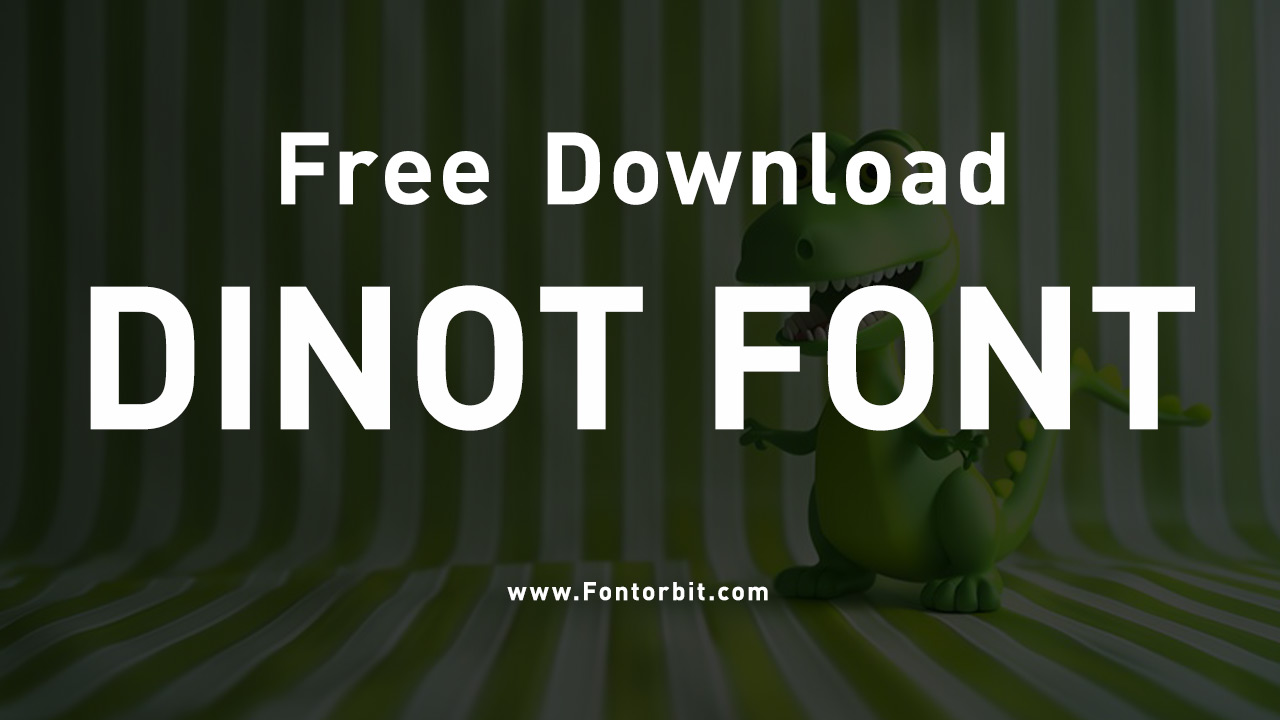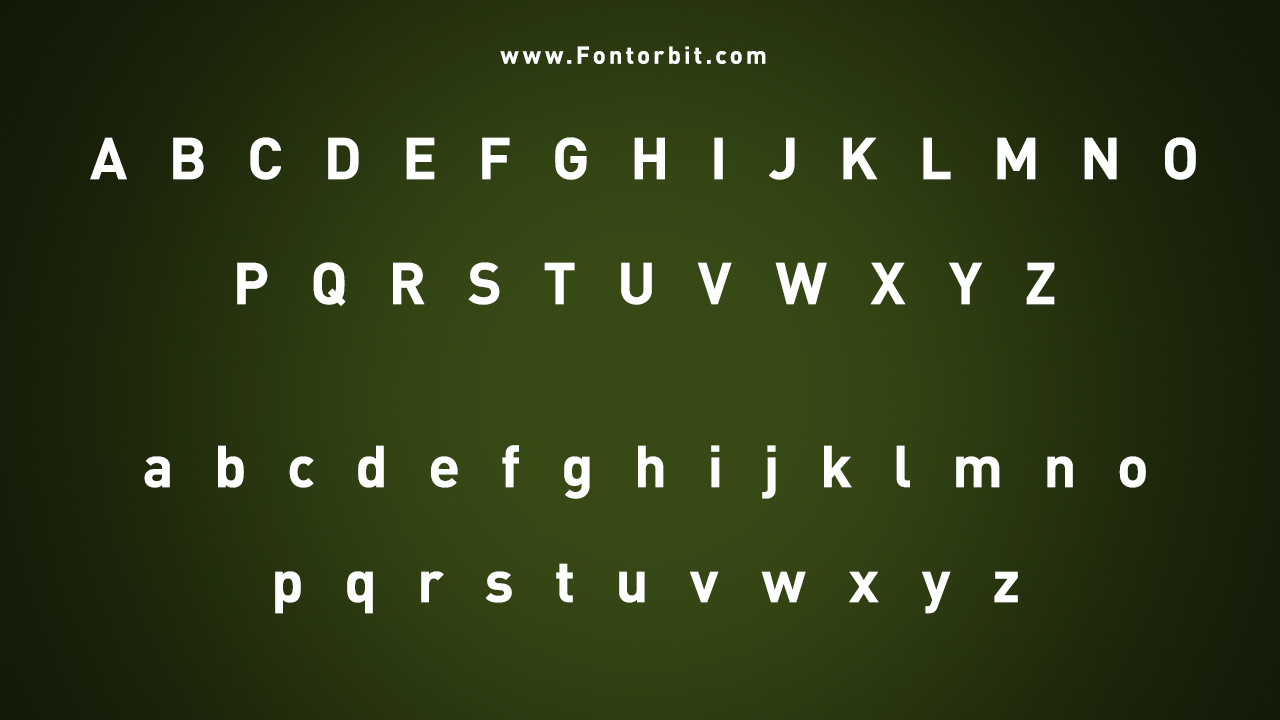
Dinot is a sleek, modern sans-serif font designed by Albert Jan Pool. Known for its precise, clean lines and geometric design, this font has become a favorite among designers for its professional and versatile look.
The Dinot Font Family
- Dinot Regular
- Dinot Bold
- Dinot Italic
- Dinot Condensed
The Dinot font family includes the “Regular” style, characterized by its minimalist design and legible forms. Its geometric and contemporary look makes it perfect for various professional applications. With a well-defined set of glyphs, the Dinot font provides a clean and neutral aesthetic that suits diverse design needs.
It supports multiple languages, ensuring versatility for international projects. The font’s medium width and balanced letterforms create a harmonious flow in text, making it a reliable choice for any modern design.
Notable Uses: Dinot Font
- Books
- Magazines
- Catalogs
- App design
- Tutorial videos
- Retail store interiors
- Theme design (WordPress, Shopify, etc.)
- Advertisements
- Annual reports
- Email marketing templates
Dinot Font’s clean, structured design makes it a popular choice for projects requiring a modern and professional touch. Its simplicity allows it to pair well with other fonts, creating a cohesive visual impact in various applications.
Final Words
Dinot works best at various sizes, making it flexible for both body text and headings. Its straightforward design and extensive language support make it suitable for a range of creative projects, from branding to digital media.
2.What Are The Different Weights Available In Dinot Font?
Dinot Font is primarily available in the “Regular” weight, which provides a balanced and versatile look.
3.How To Create A Modern Look Using Dinot Font?
Pair Dinot with a complementary sans-serif like “Open Sans” or a minimal serif for a clean, modern design. Incorporate ample white space and use a monochromatic color scheme to enhance its sleek appearance.
6.How To Use Dinot Font In A Design?
Use Dinot Font for headings, logos, or body text to add a contemporary, professional touch. Pair it with decorative fonts to create contrast in design projects.
9.What Are The Best Pairings For Dinot Font?
Pair Dinot with fonts like “Roboto” for a modern feel or “Playfair Display” for a sophisticated, balanced look.